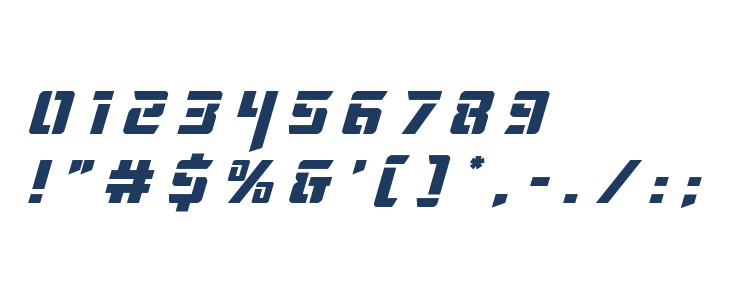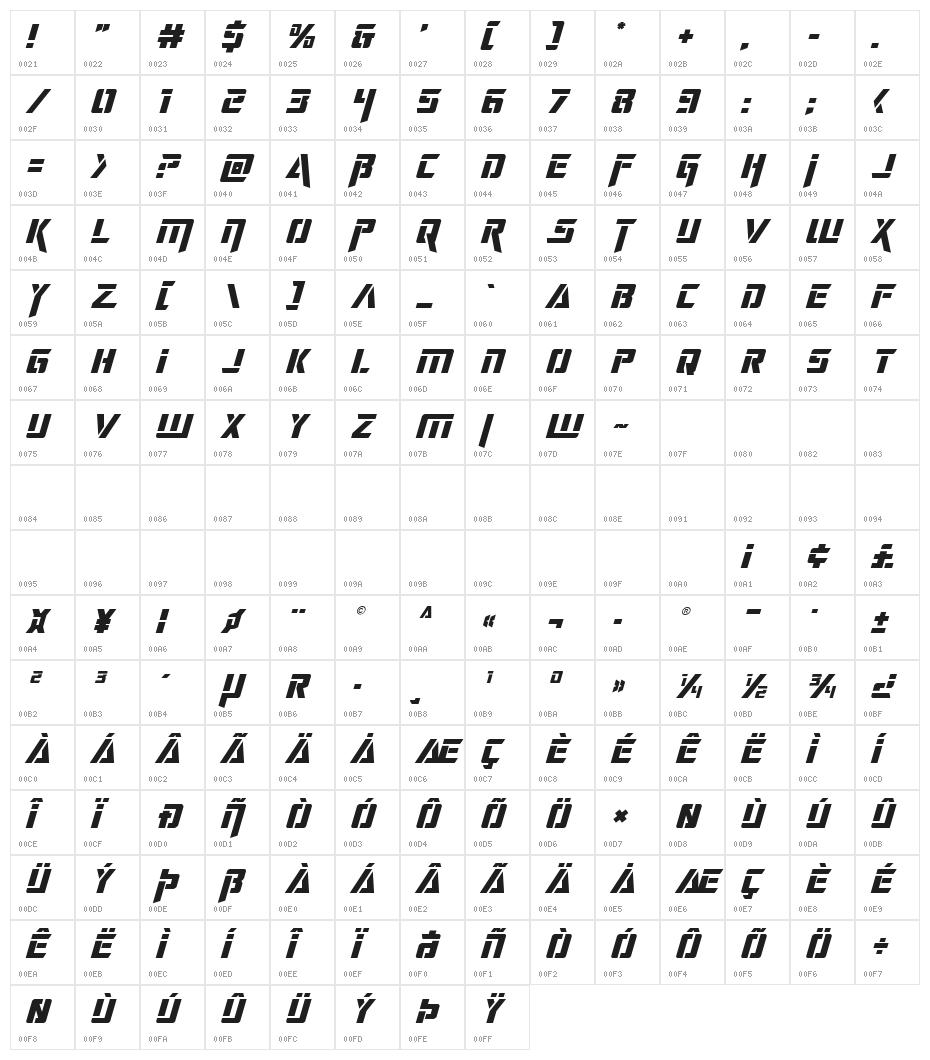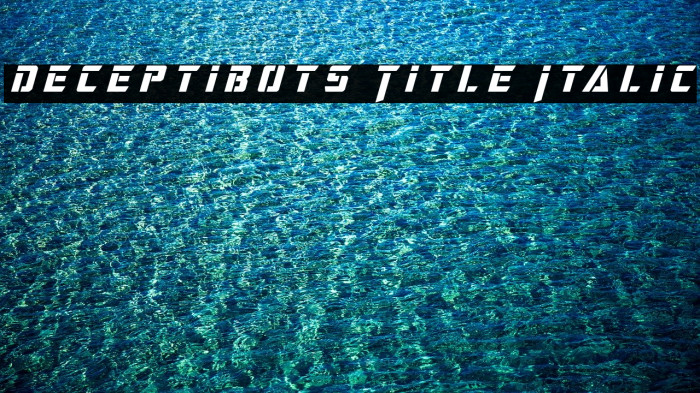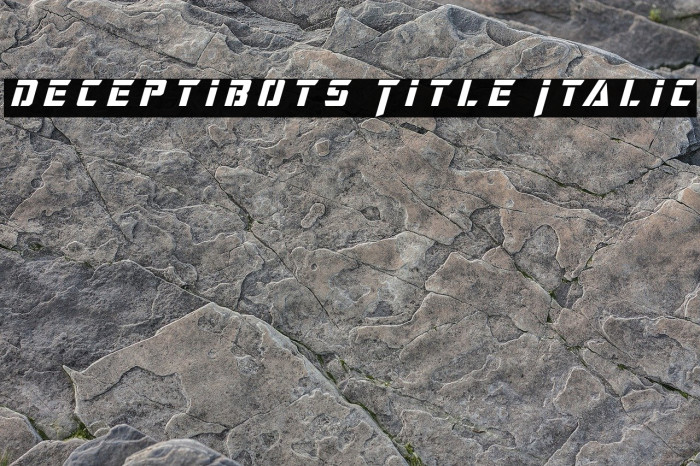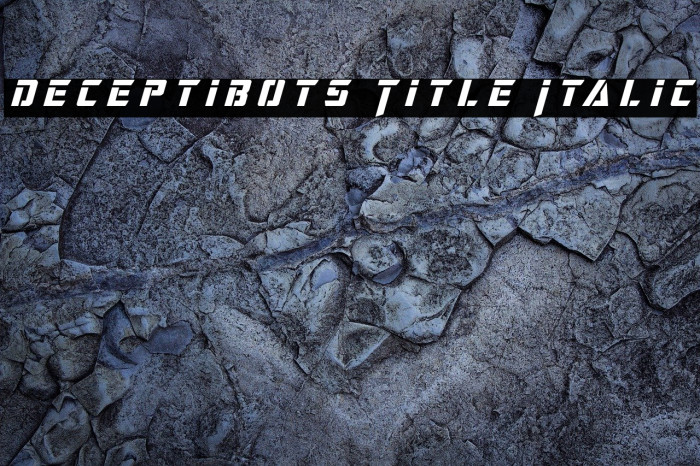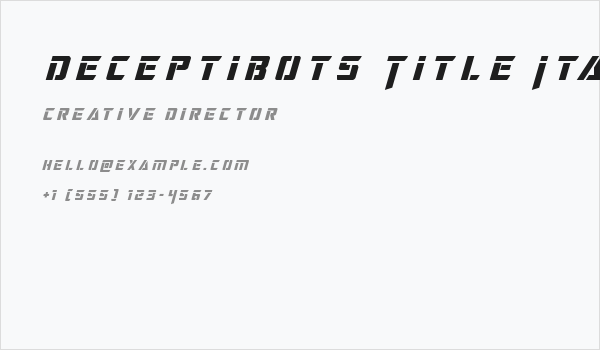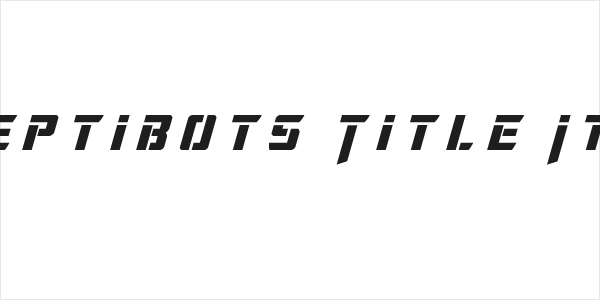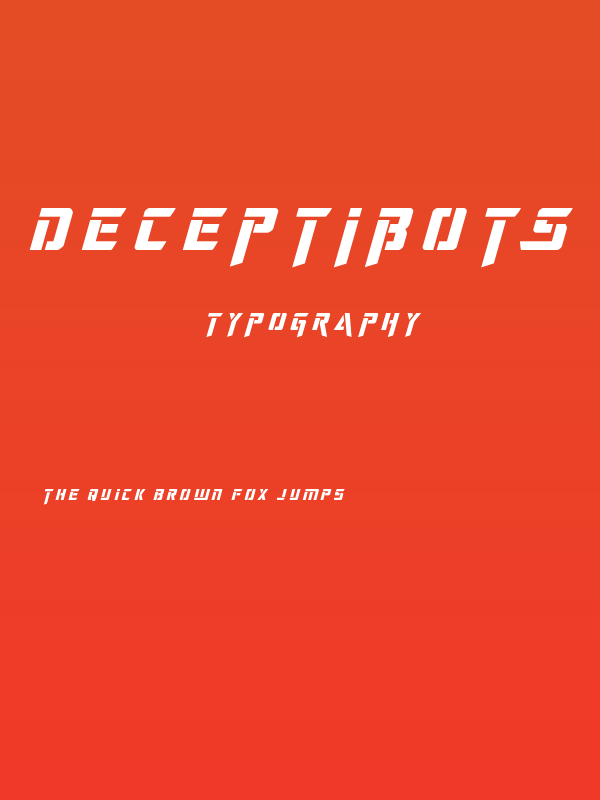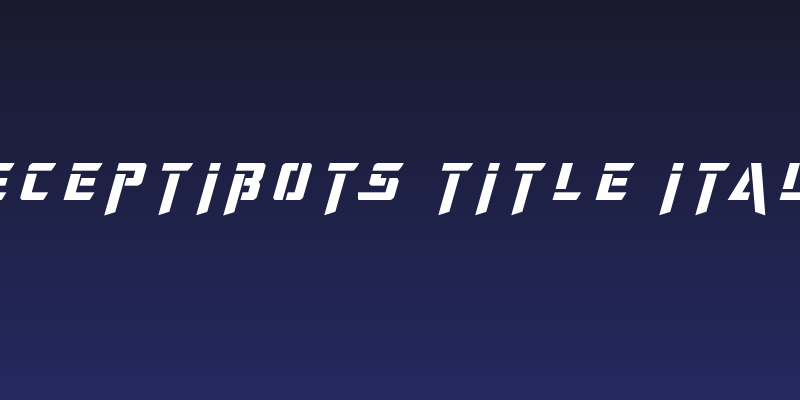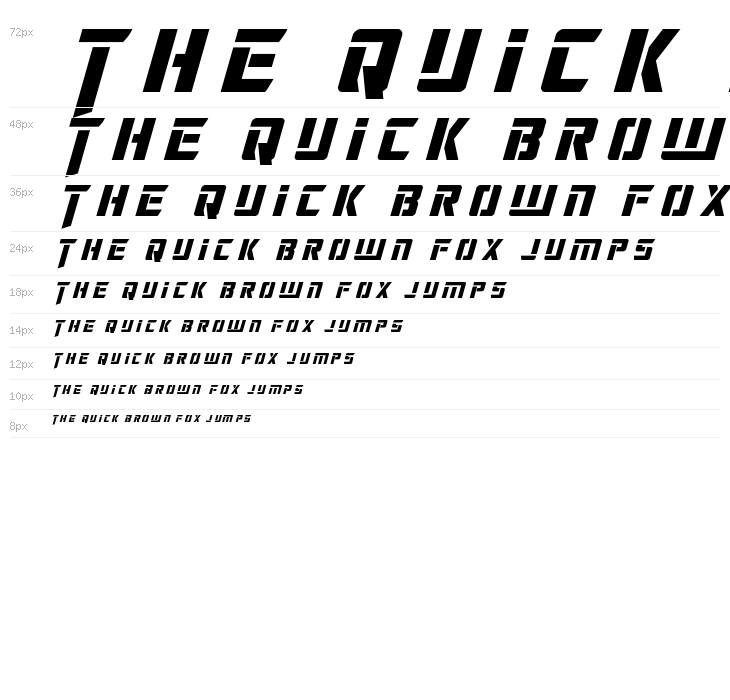
Deceptibots Title Italic Font
Deceptibots Title Italic Description
This font features a bold, futuristic design with sharp, angular lines and a distinct italic slant. The characters are constructed with a geometric precision, giving them a dynamic and aggressive appearance. The uppercase and lowercase letters maintain a consistent style, with the uppercase being slightly more pronounced. Numbers and special characters are designed to match the overall aesthetic, ensuring a cohesive look across all text elements. The font's unique style makes it ideal for projects that require a modern, tech-inspired feel.
| Overall Style | Futuristic, Modern |
| Proposed Projects | Ideal for technology branding, video game titles, sci-fi movie posters, and futuristic event flyers. |